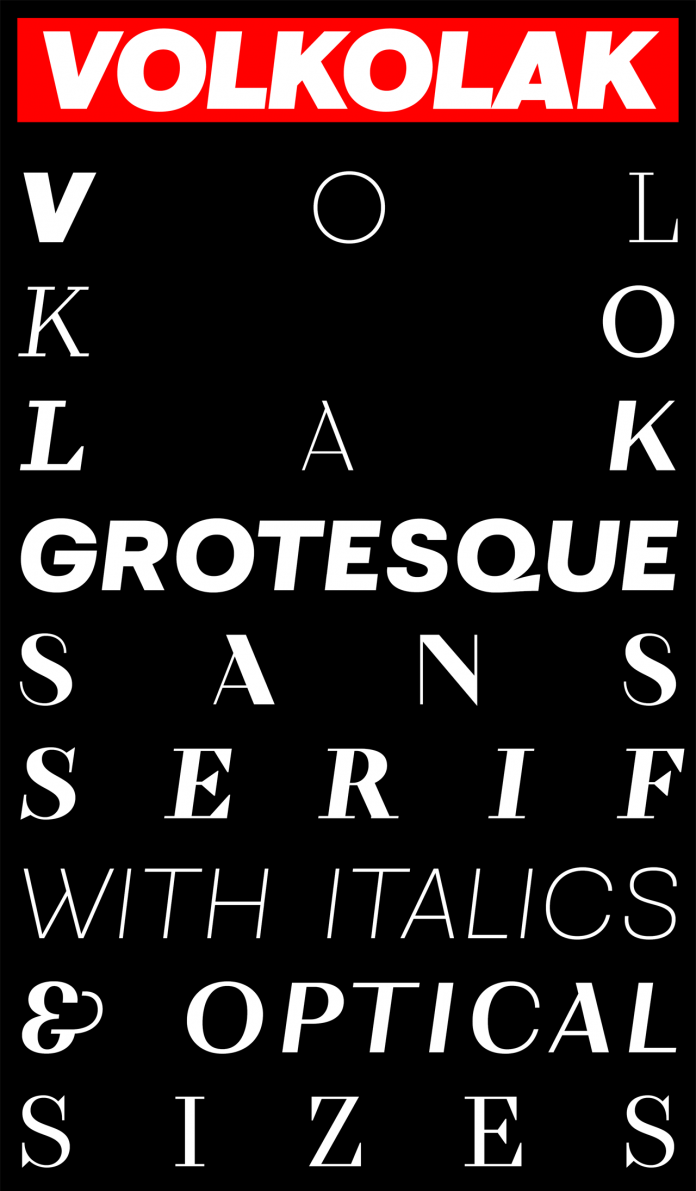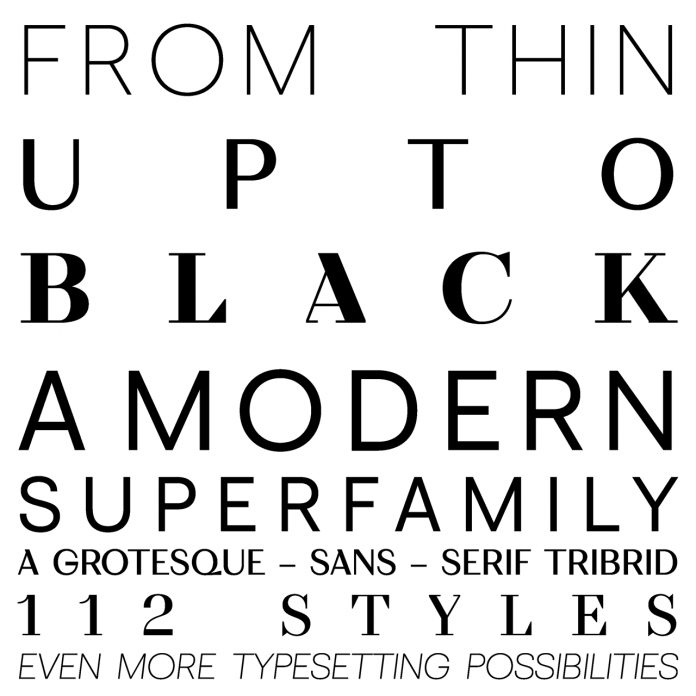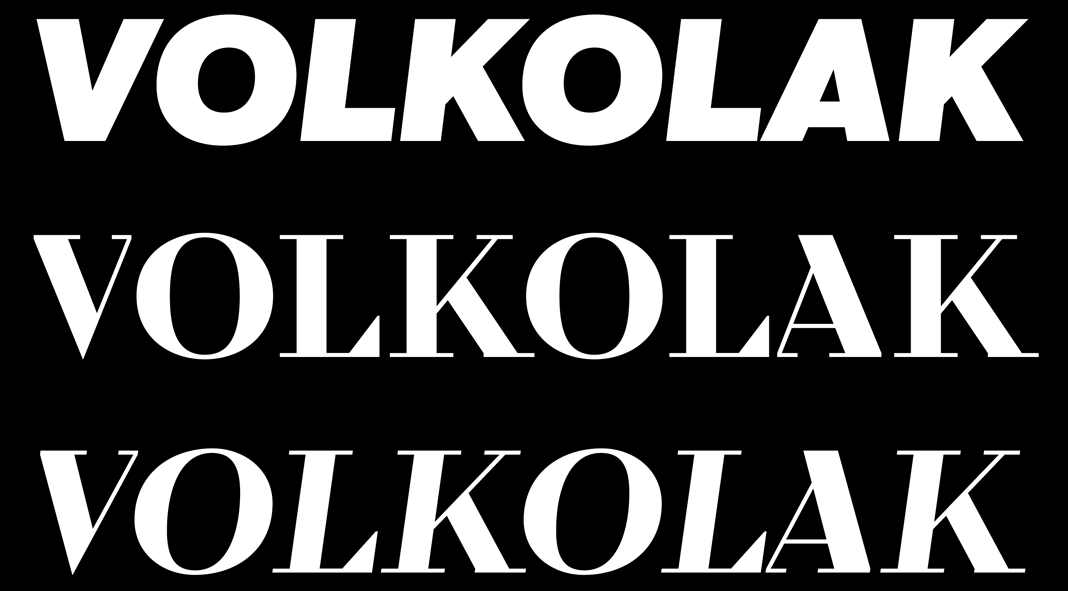
Volkolak, a multi-classification font family published by Wraith Types.
Today we are pleased to introduce you to Volkolak, a unique serif-sans-grotesque tribrid font family that was recently published by Swiss type foundry Wraith Types. Its numerous cuts will offer you lots of typographic options. Read more below or click on the following link to purchase this outstanding font family as a heavily discounted introductory offer.